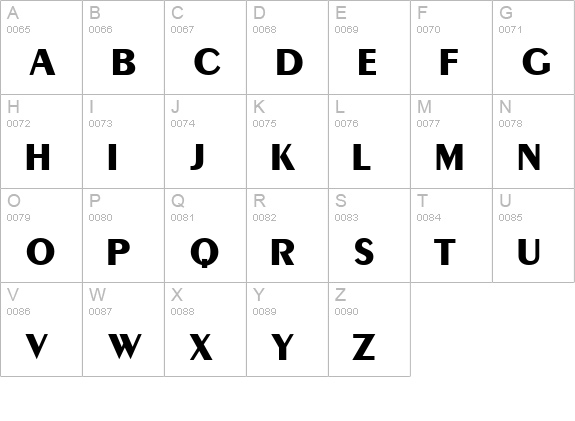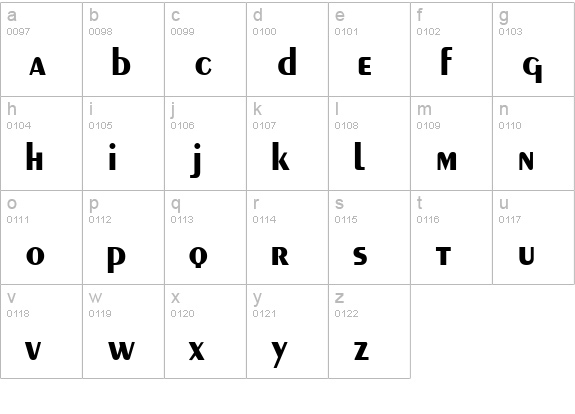
CremeBlackSSK Font Details
CremeBlackSSK font is a stylish and modern typeface that exudes elegance and sophistication. With its bold strokes and sleek curves, this font is perfect for adding a touch of luxury to your designs. Whether you're creating a logo, branding materials, or a website, CremeBlackSSK font will make a bold statement. The best part? CremeBlackSSK font is available for free download at FontsMarket.com. You can easily access this stunning font and enhance your projects with its timeless appeal. Don't miss out on the opportunity to elevate your designs with CremeBlackSSK font today!